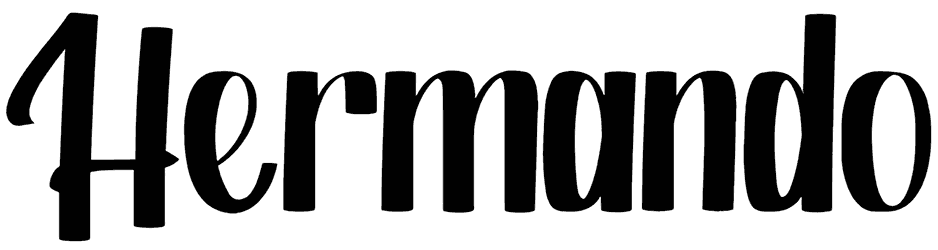
Hermando Font
Say hello to Hermando, a charming handwritten font featuring a thick, well-balanced display. It comes with two styles and two weights, but doesn’t support any numerals or punctuation. This script font can elevate your design to the highest level and will be great for any project, such as movie posters, product packaging, apparel printing, branding, and logotypes.